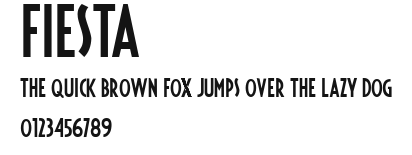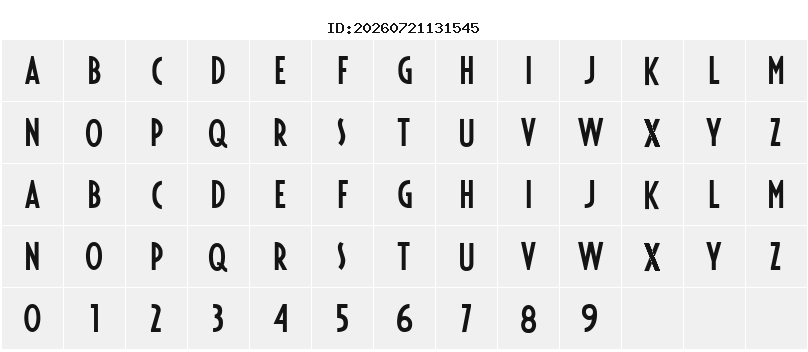
About Fiesta.ttf
Fiesta.ttf is a modern, elegant sans-serif font designed for ultimate readability and visual harmony. Perfect for branding, headlines, web design, and print materials.